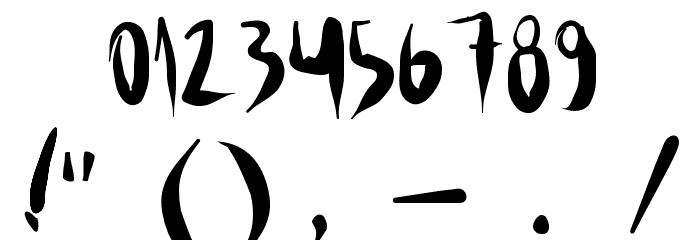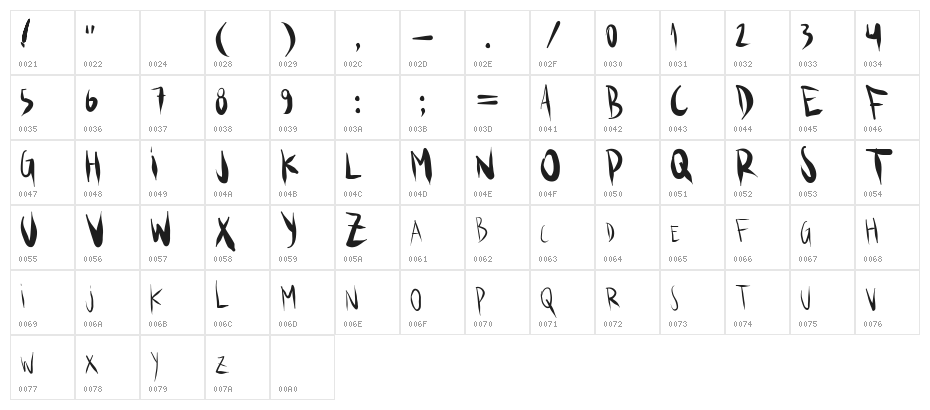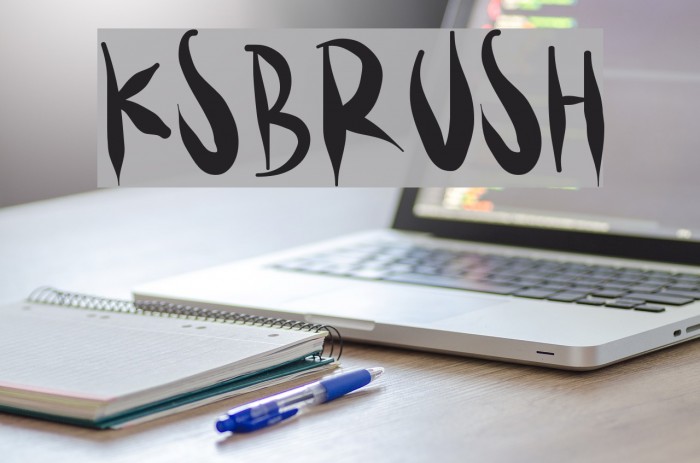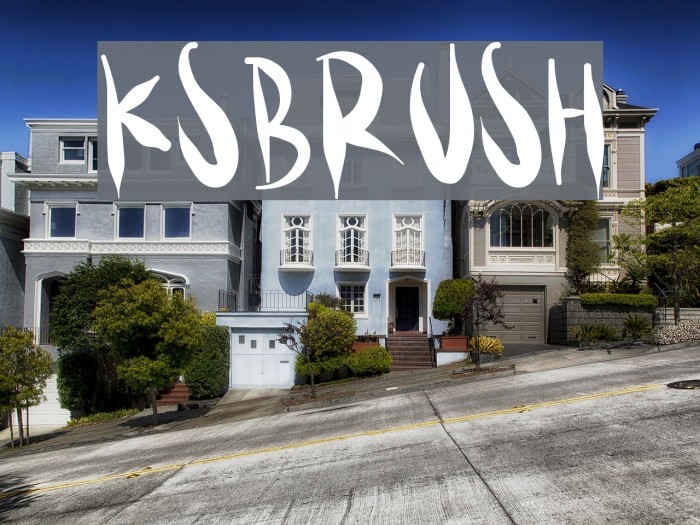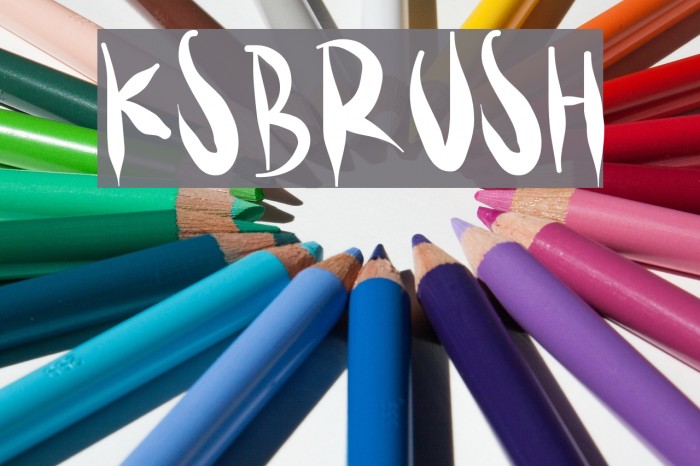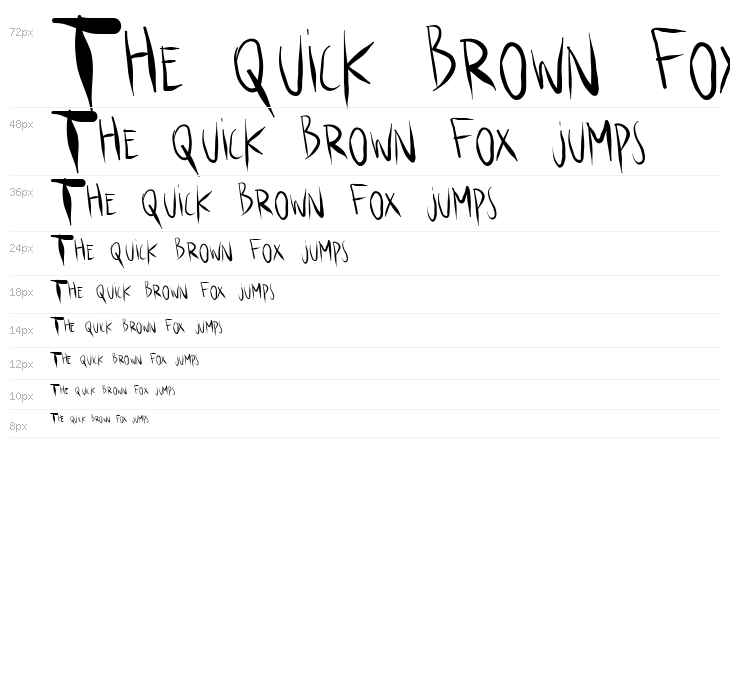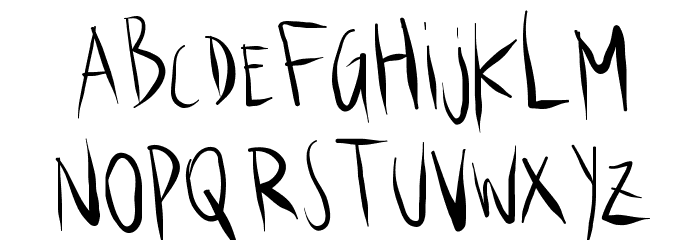
KSBRUSH Font
KSBRUSH Description
This font features a bold and expressive brush style, characterized by its dynamic and irregular strokes that give it a hand-painted appearance. The uppercase letters are particularly striking, with varying thicknesses and angles that create a sense of movement and energy. The lowercase letters maintain this lively aesthetic, though they are slightly more restrained. The numerals and special characters are consistent with the overall style, offering a cohesive look across all glyphs. This font is ideal for projects that require a personal, artistic touch, such as posters, invitations, or branding materials that aim to convey creativity and spontaneity.
| Proposed Projects | Ideal for artistic projects, posters, invitations, and creative branding. |